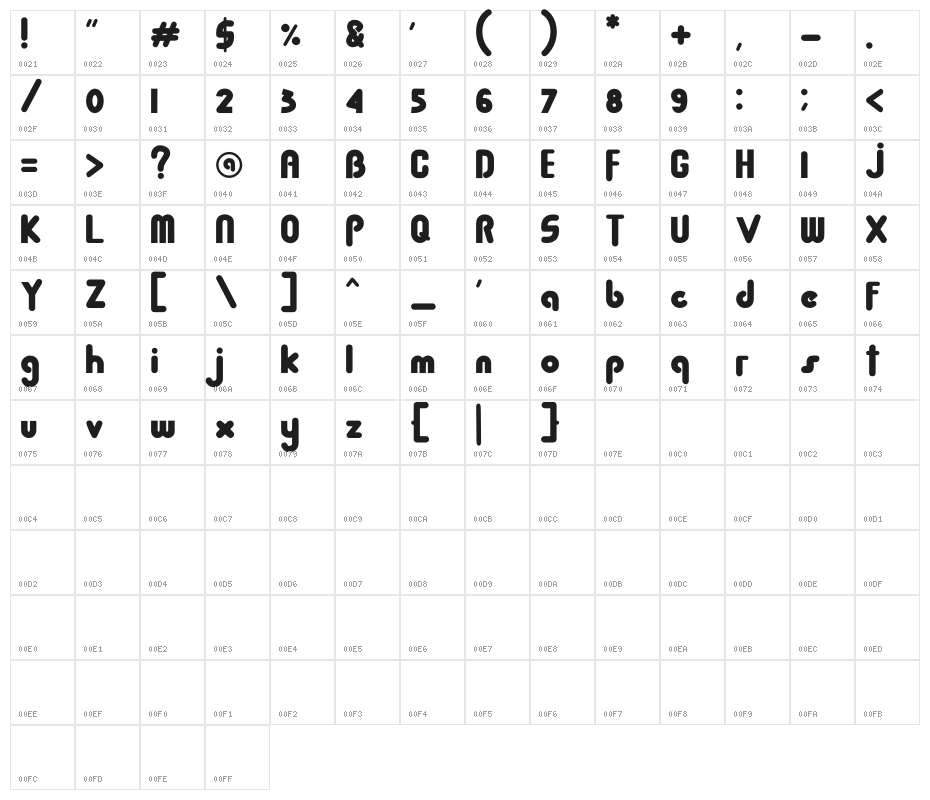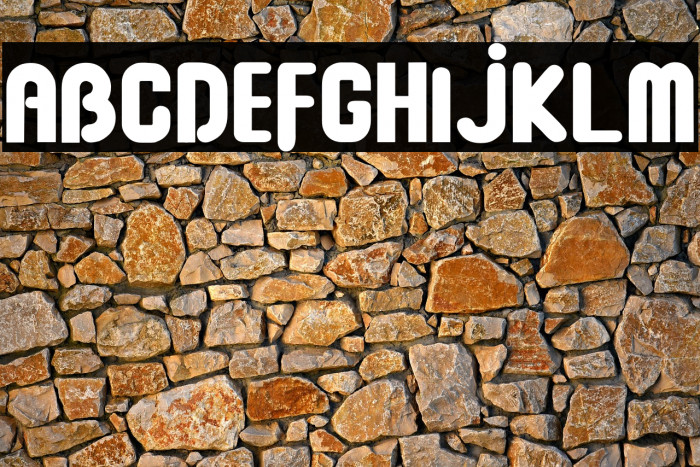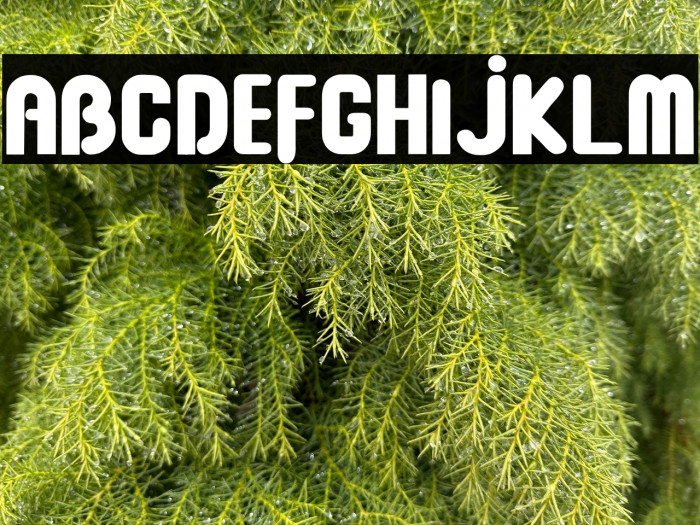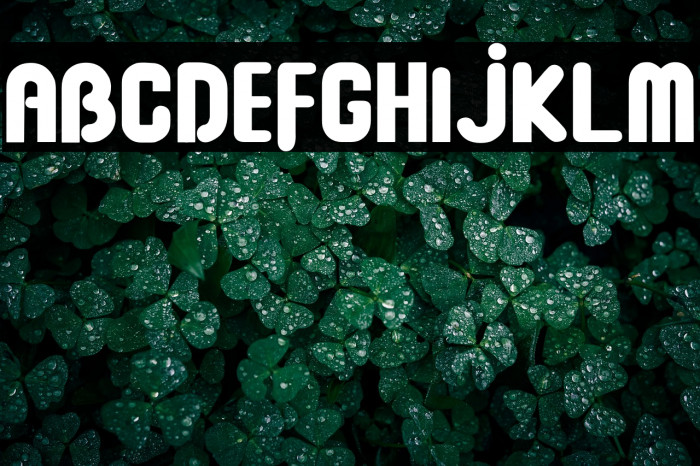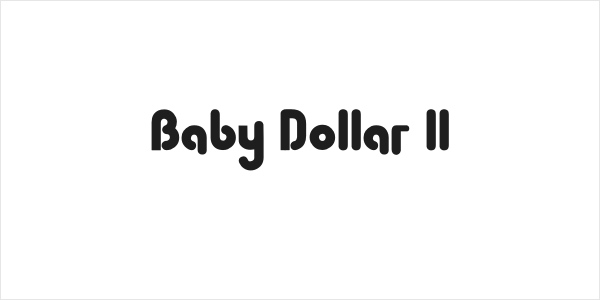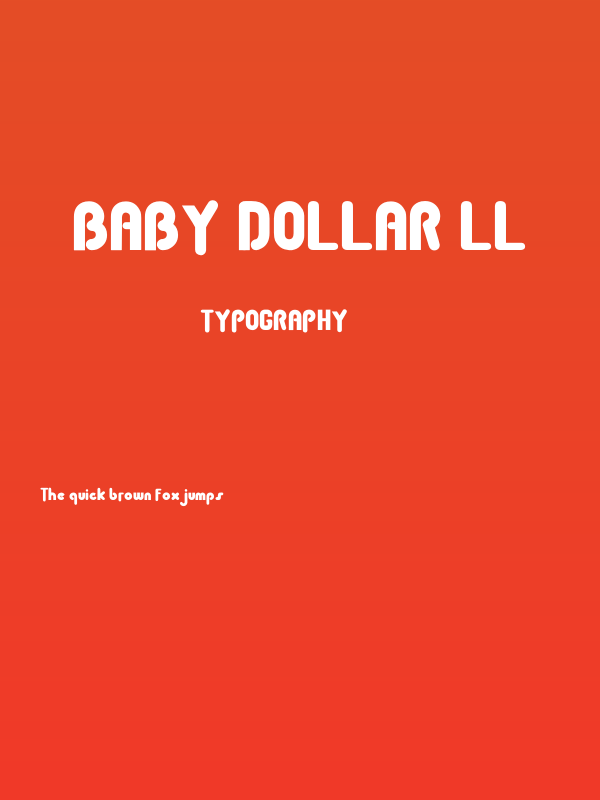
Baby Dollar ll Font
Baby Dollar ll Description
This playful and bold font features rounded edges and a thick, uniform stroke that gives it a friendly and approachable appearance. The characters are slightly condensed, enhancing readability while maintaining a unique style. The uppercase and lowercase letters are well-balanced, with a consistent height that adds to the font's cohesive look. The numerals and special characters match the overall design, ensuring a harmonious appearance across all text elements. This font's distinct personality makes it ideal for projects that require a touch of whimsy and creativity.
| Proposed Projects | Ideal for children's books, playful branding, posters, and creative packaging. |